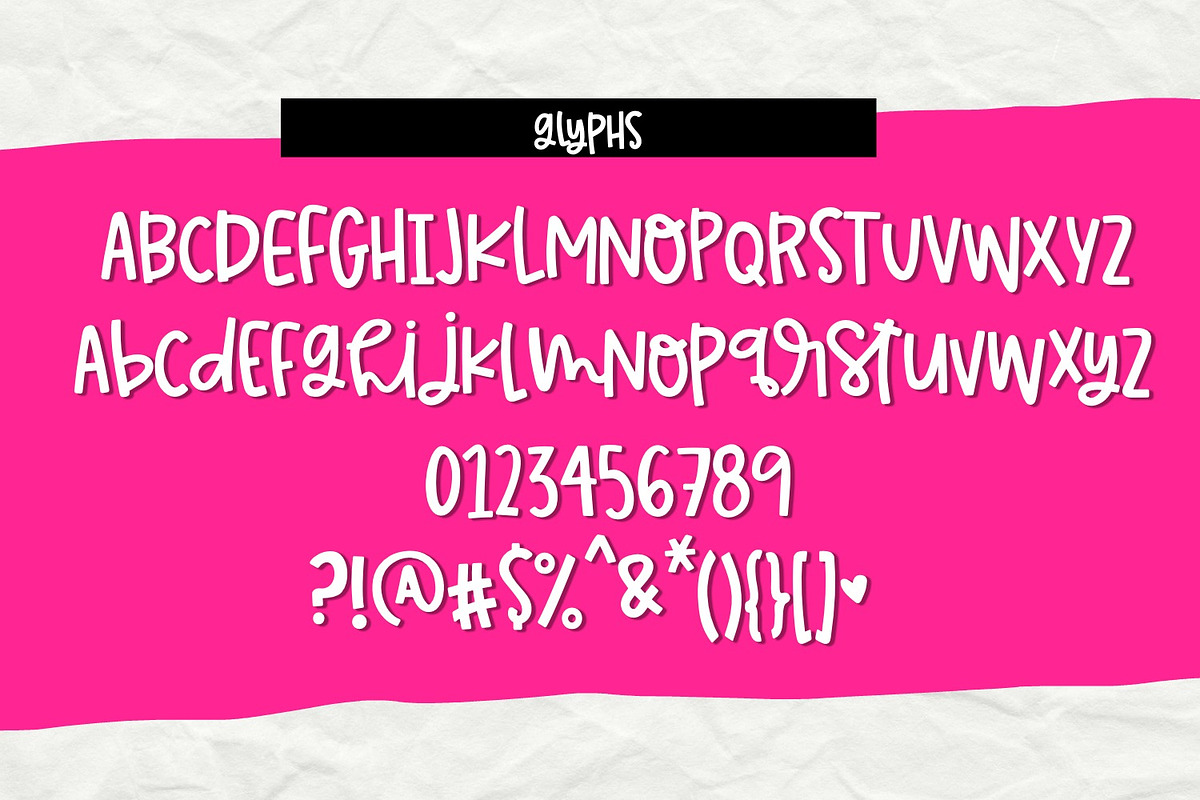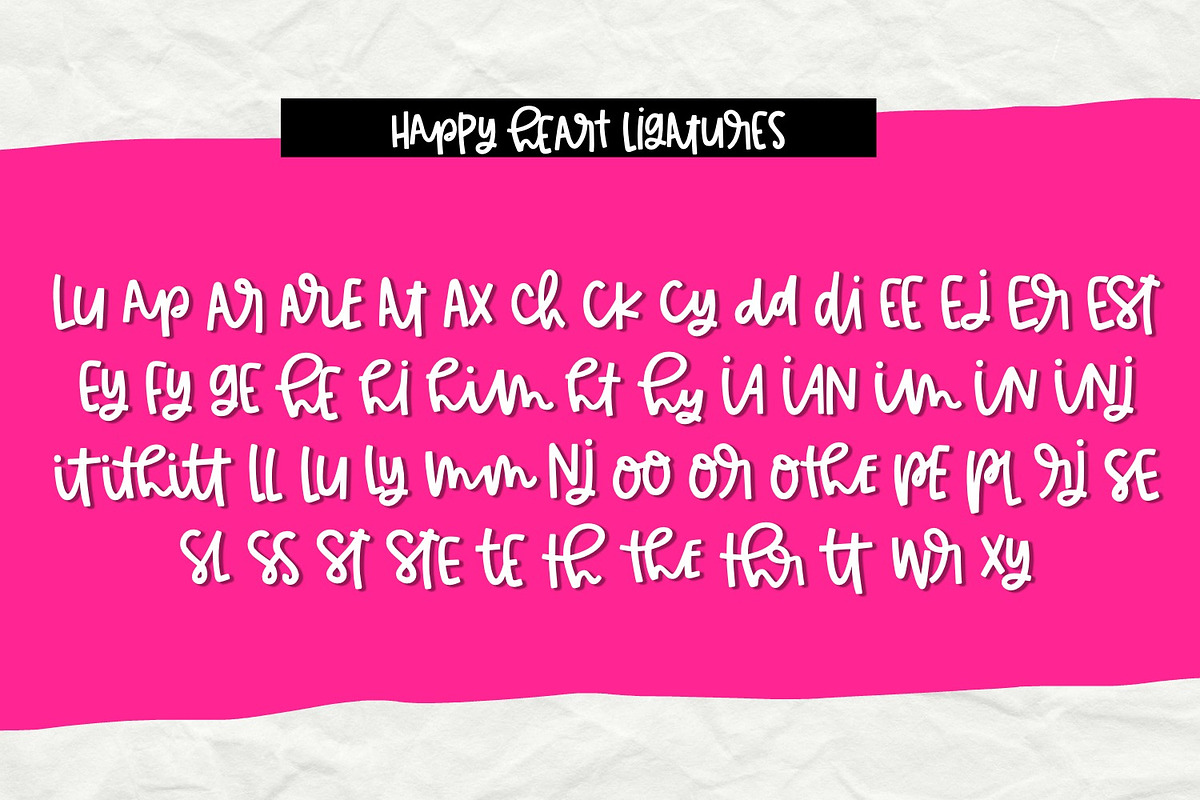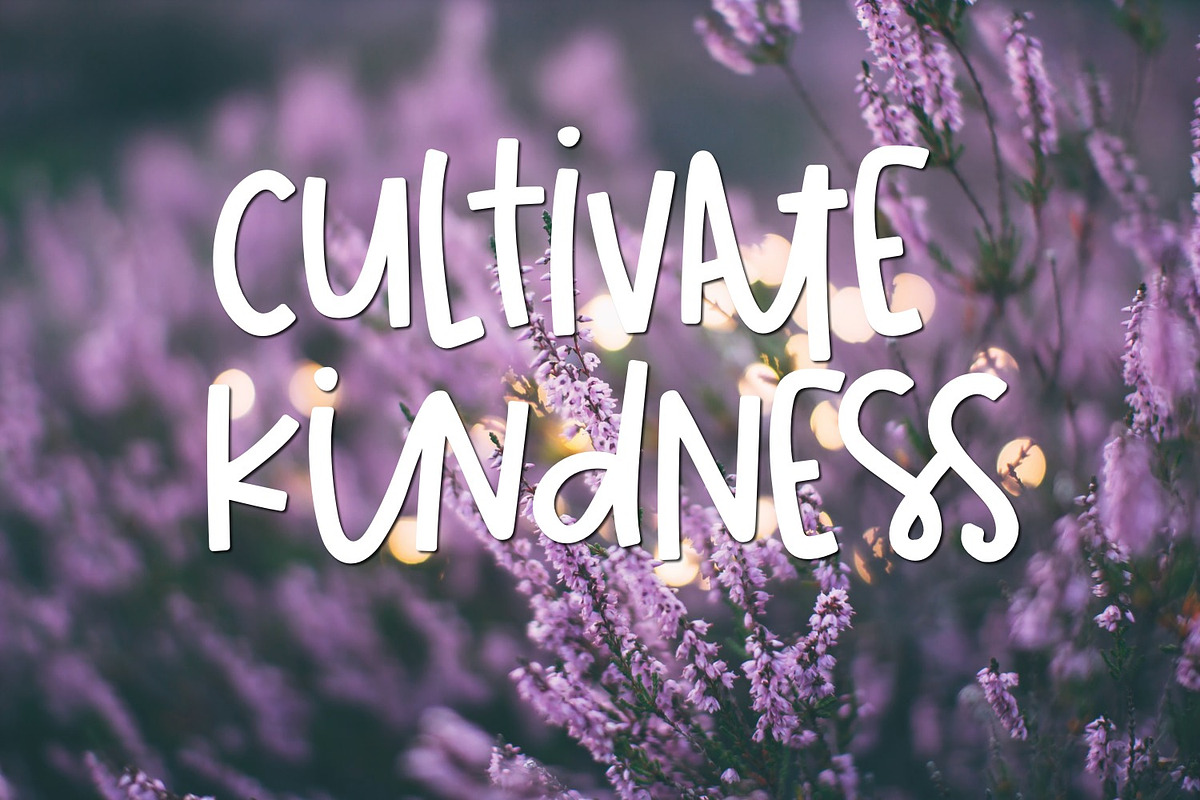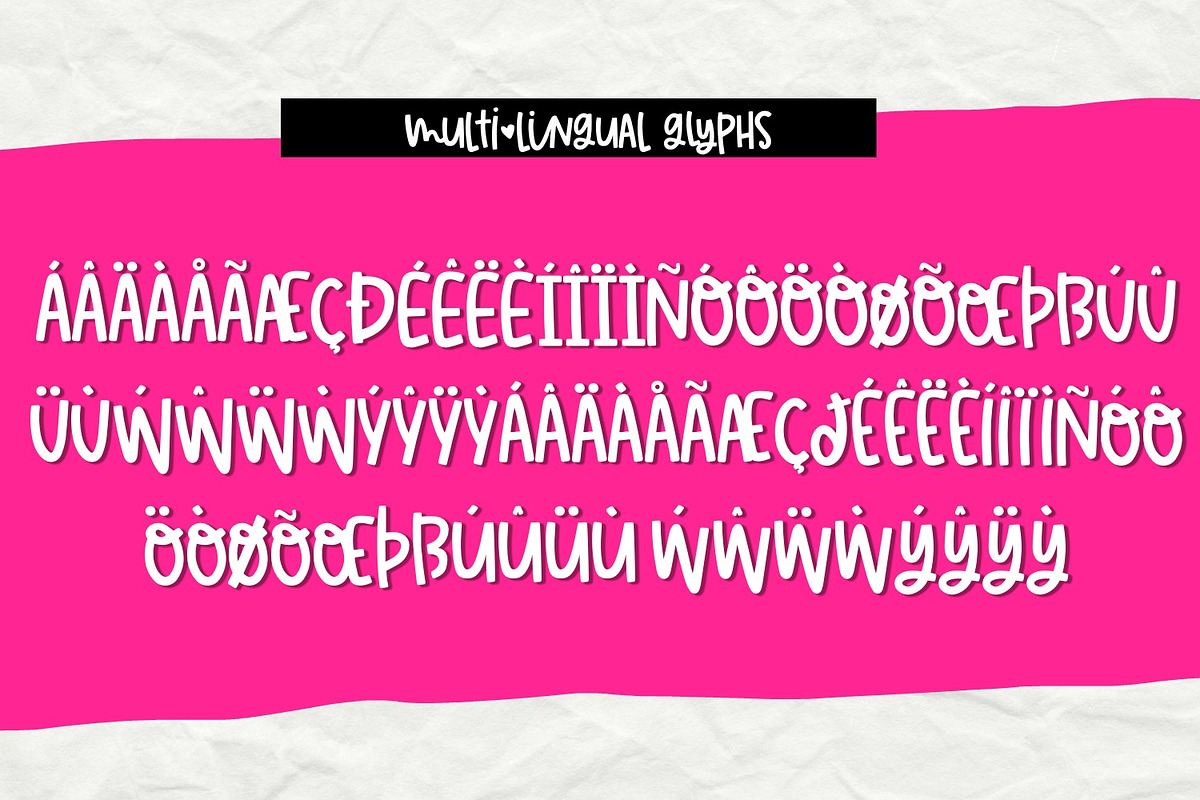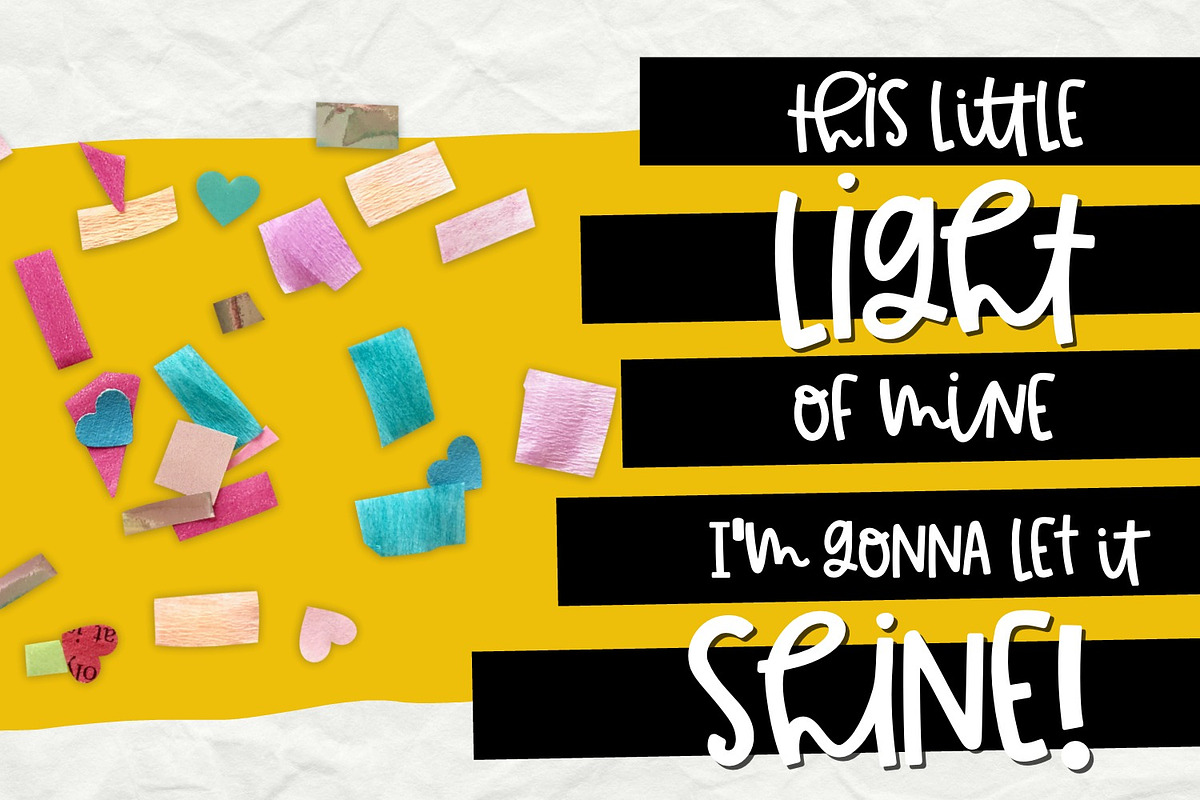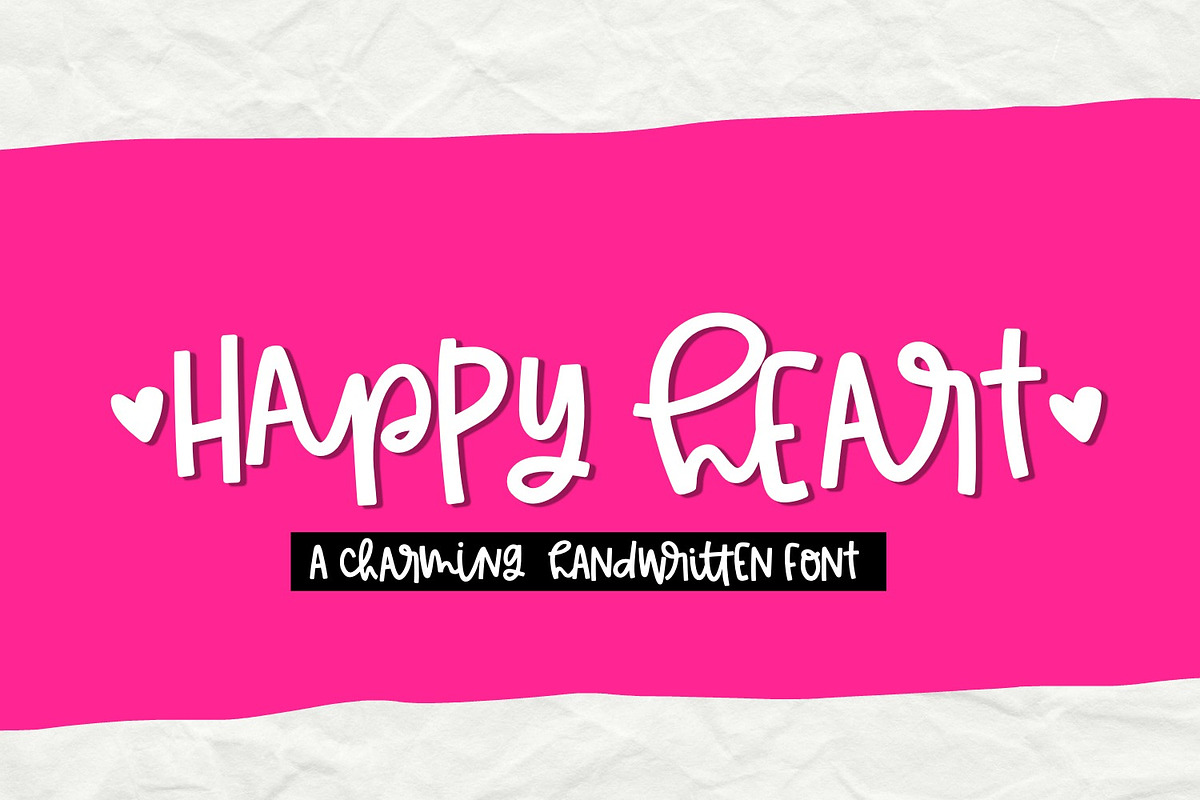
Happy Heart Handwritten Font
Meet Happy Heart Handwritten Font! This quirky handwritten font is perfect for many design projects! I've made this font as smooth as possible, reducing the amount of nodes in each glyph to ensure optimal cutting with Cricut, Silhouette or other craft machines.